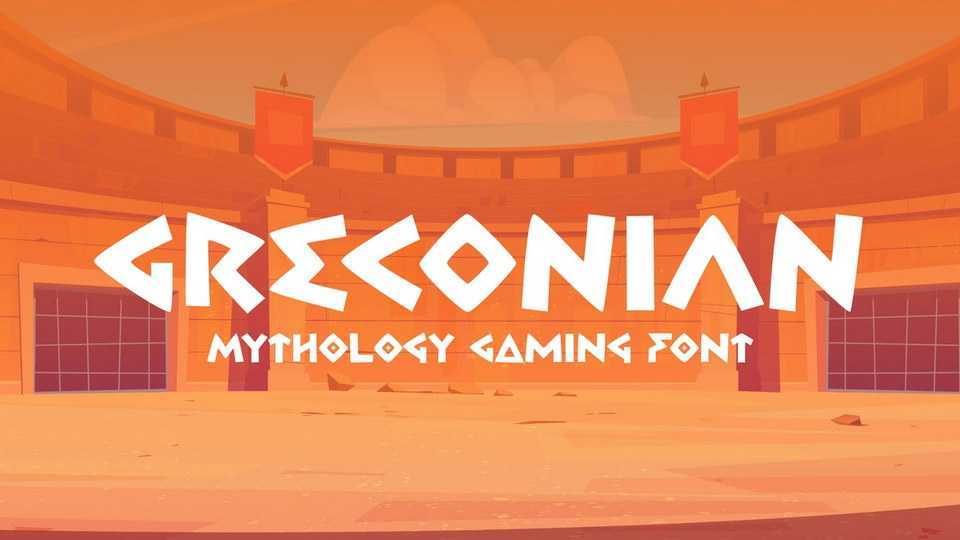
Download Greconian font, an ancient Greek gaming typeface. It feels like we witness the day Achilles defeat his enemy, the day when Zeus rule the entire Greek myth world, the day when Gladiator fight the lion on the colosseum.